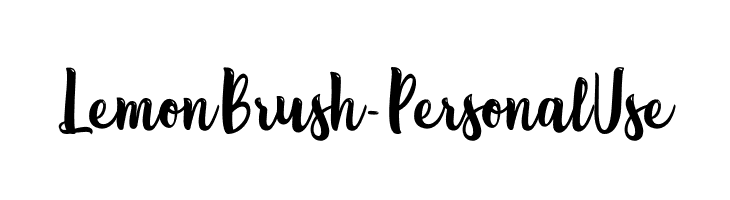
A futuristic, angular font with an italic slant, inspired by LED displays.
A digital, segmented font inspired by LED displays, perfect for tech-themed designs.
A digital, grid-like font inspired by LED displays with a modern, geometric style.
A whimsical and decorative font with playful curls and elegant flourishes.
A whimsical, decorative font with curly, hand-drawn elements.
A clean, monospaced font with a minimalist design, ideal for digital displays.
A bold, modern sans-serif font with low contrast and slightly condensed width.
A modern, italic sans-serif font with a clean and balanced design.
A playful, brush-style font with dynamic strokes and a hand-drawn aesthetic.
A playful, bold font with rounded edges and a slightly italicized style.